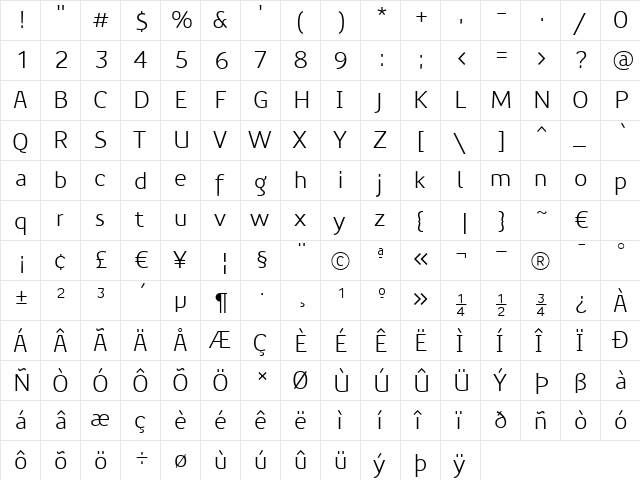
PreciousSansBook Regular Font Preview
PreciousSansBook Regular
PreciousSansBook Regular Font Details
Design Context for PreciousSansBook Typeface
PreciousSansBook is a composed and adaptable typeface that performs quietly and consistently across a wide range of design contexts.